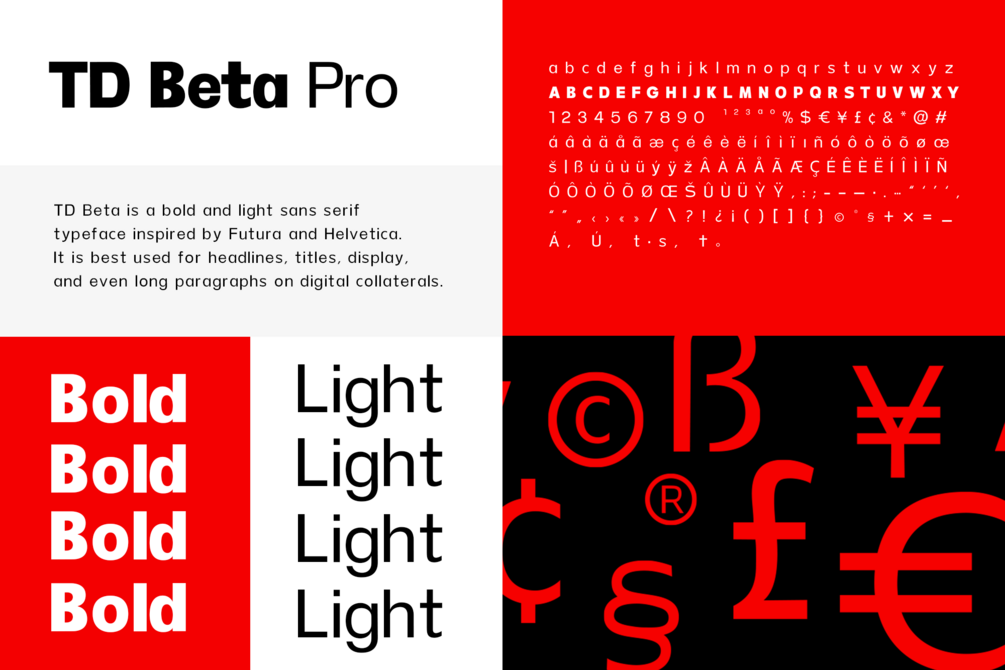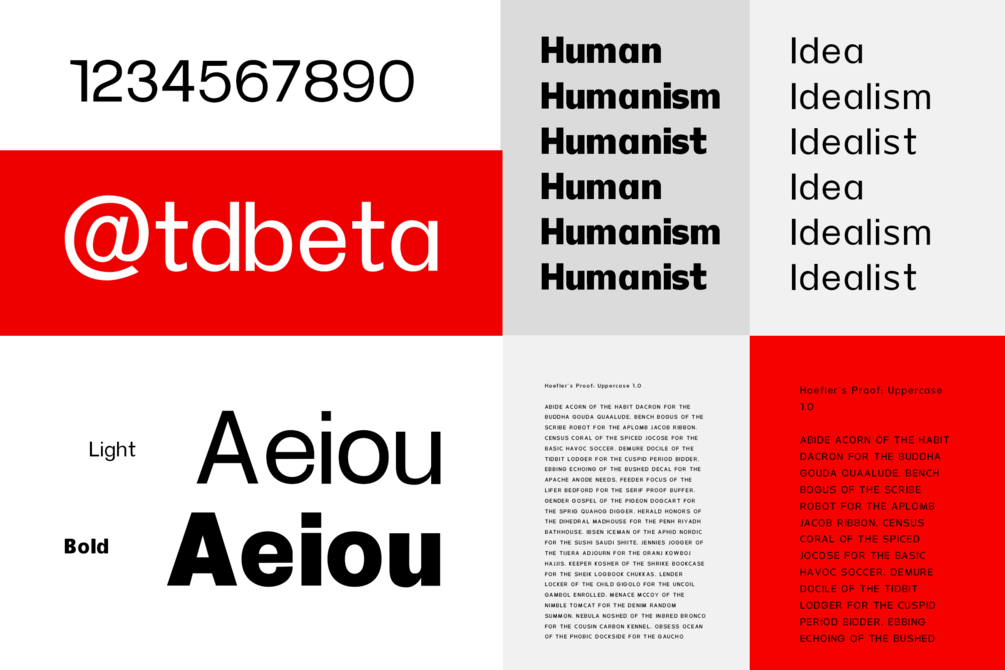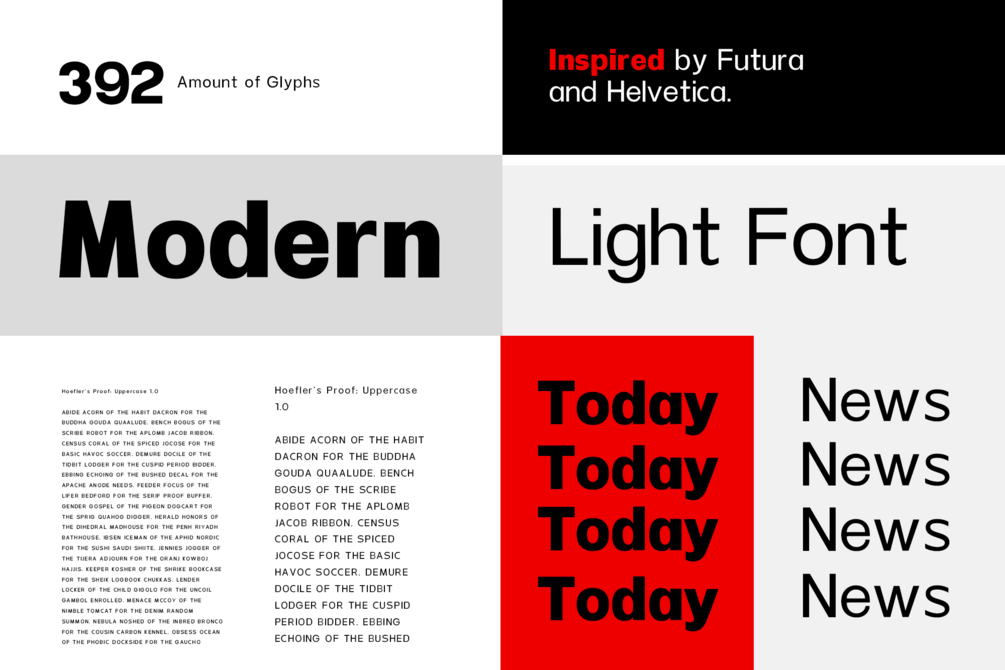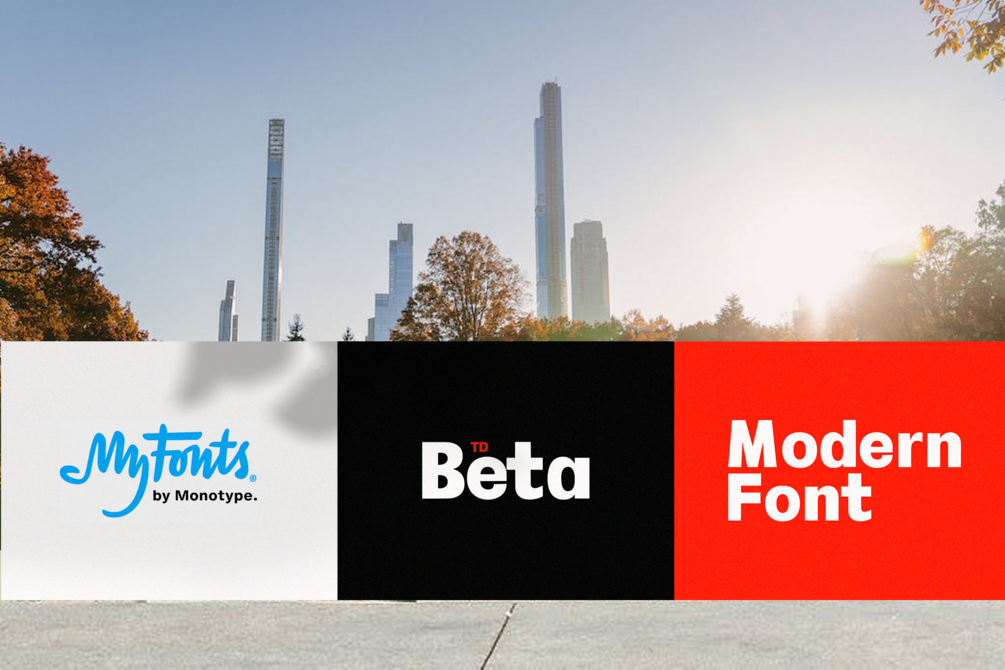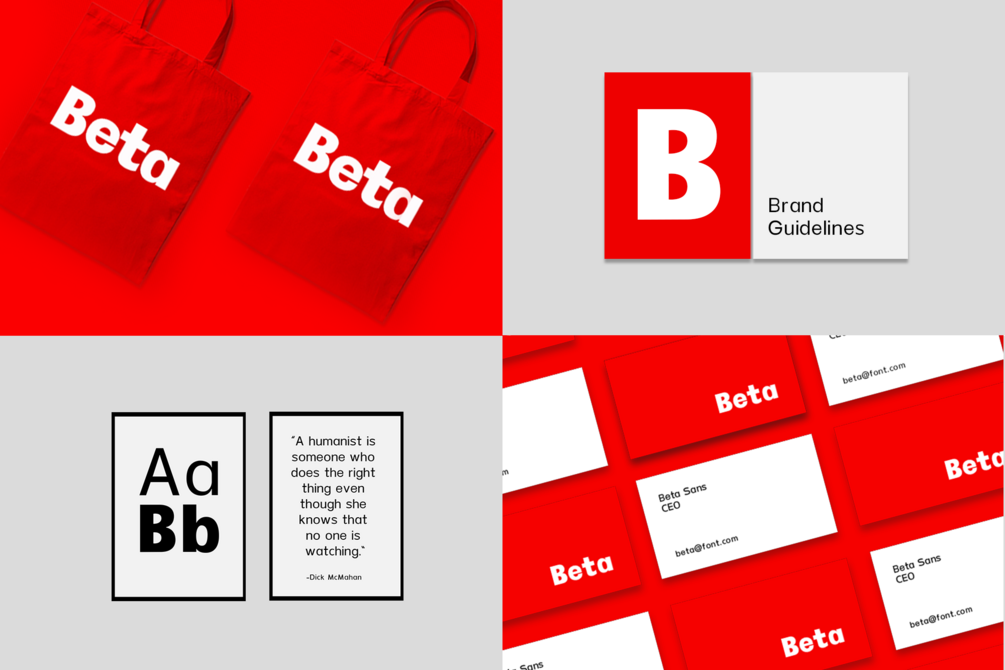
TD Beta Pro
TD Beta Pro is a bold and light sans serif typeface inspired by Futura and Helvetica. It is best used for headlines, titles, and display.